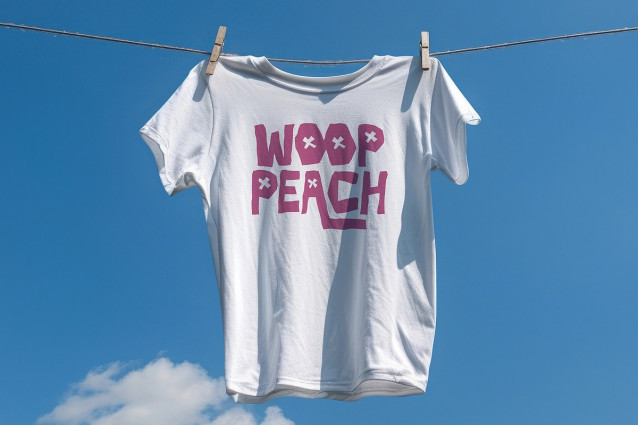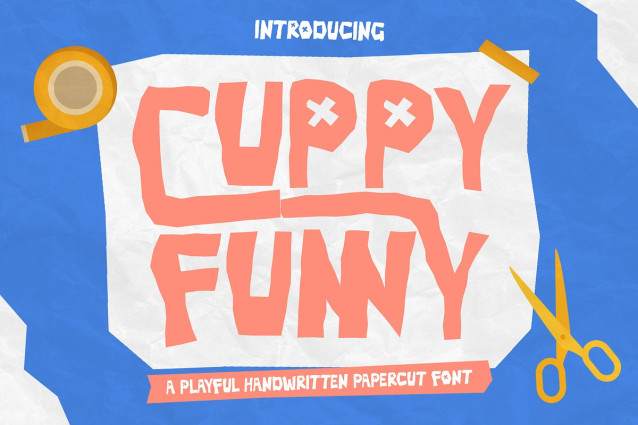
Cuppy Funny Font
Cuppy Funny Font is a playful handwritten papercut font with quirky, cut-out shapes and bold energy. Inspired by DIY crafts and children’s creativity, it brings a cheerful and handmade touch to your design.
Cuppy Funny is a playful handwritten display font crafted in a distinctive papercut style that evokes creativity, fun, and childlike imagination. With bold, uneven letterforms and quirky handcrafted details like star-shaped counters and whimsical curves, it mimics the charm of cut-out paper letters arranged by hand.
This adorable font falls into the decorative display category and is ideal for use in children’s books, classroom materials, birthday cards, DIY-themed projects, and playful branding. Its spontaneous, expressive rhythm makes it perfect for grabbing attention in titles and headings, while maintaining a casual, friendly tone throughout.